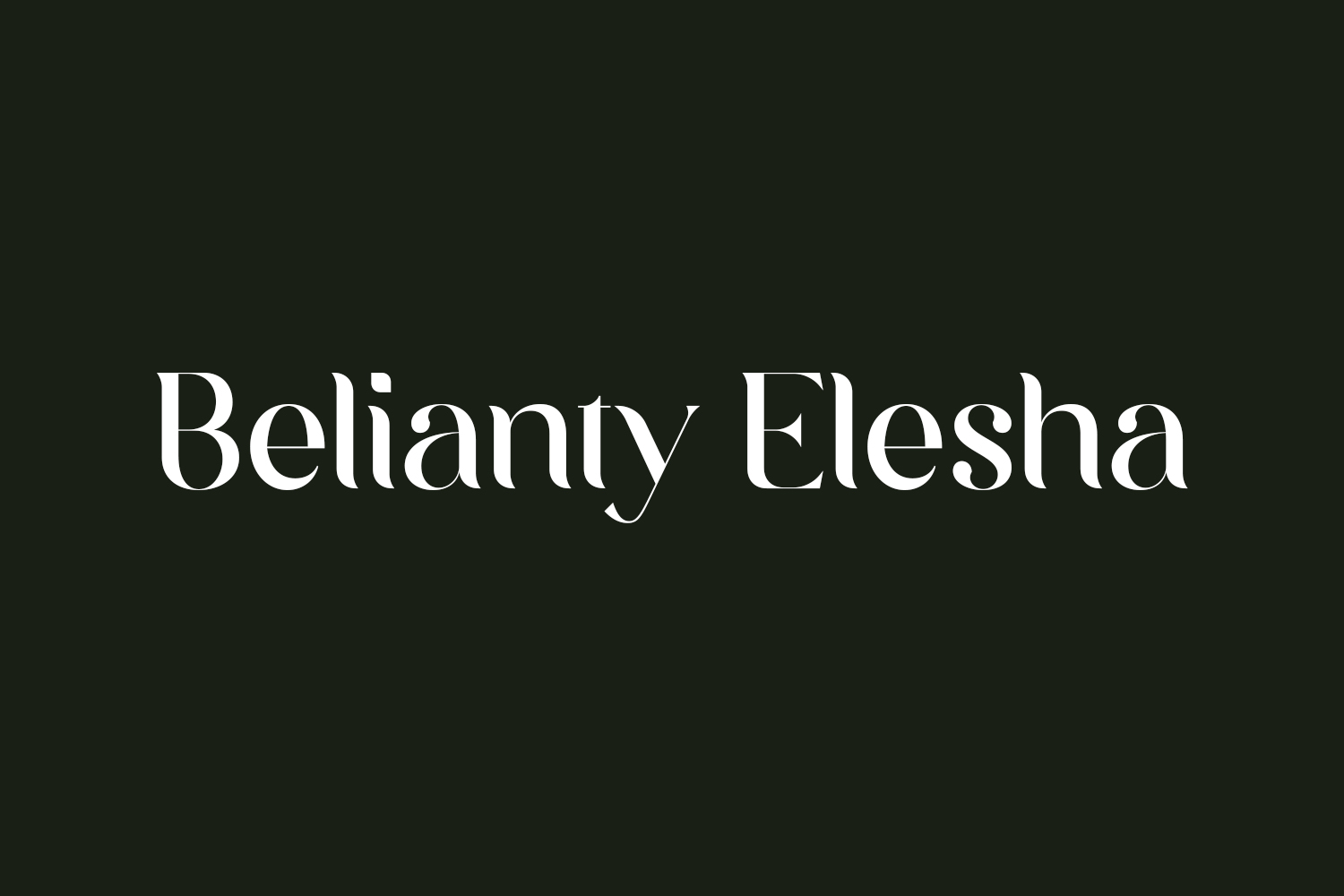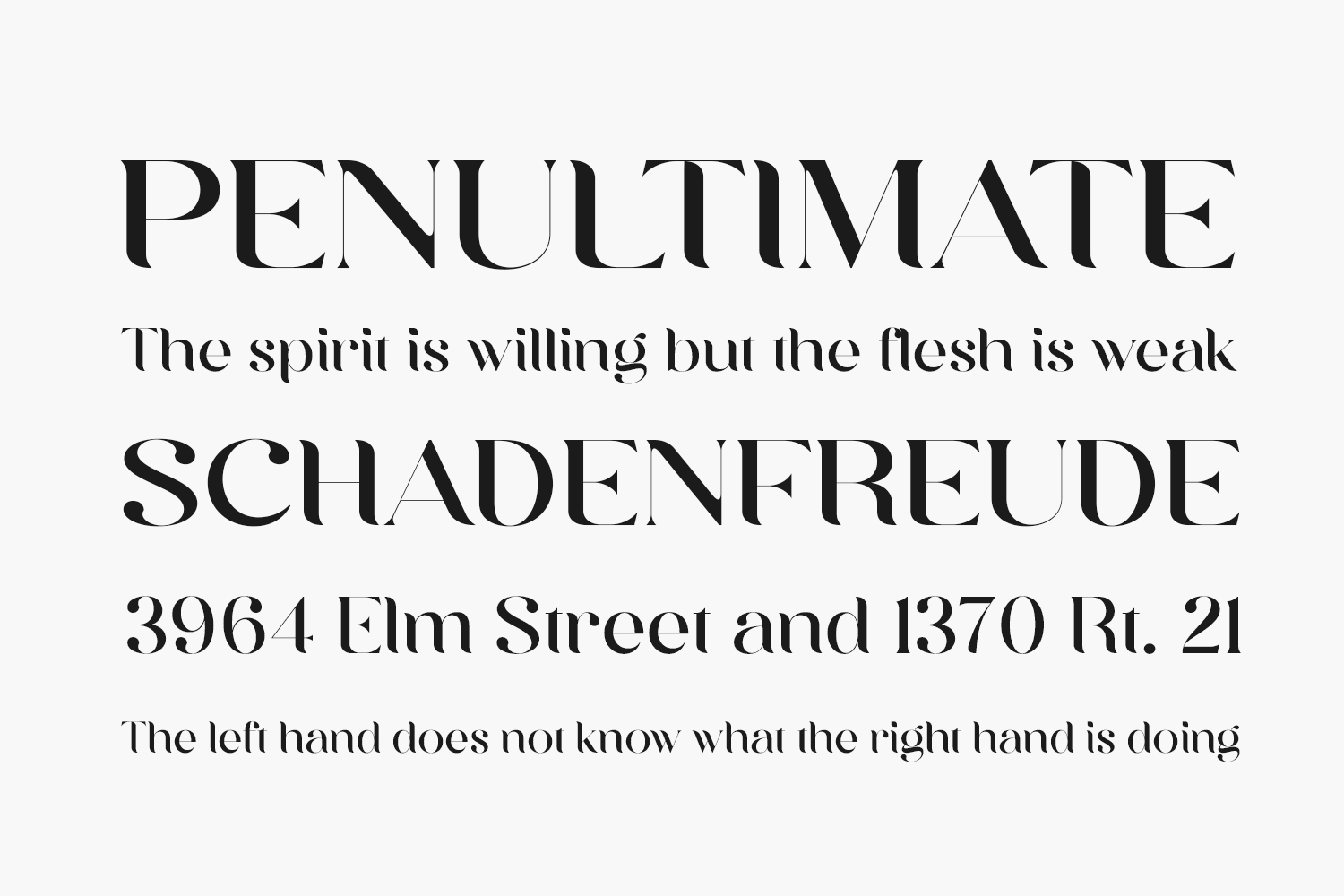
Belianty Elesha Free Font Family is a trendy, elegant and stylish serif font. It maintains its classy calligraphic influences while feeling contemporary and fresh.